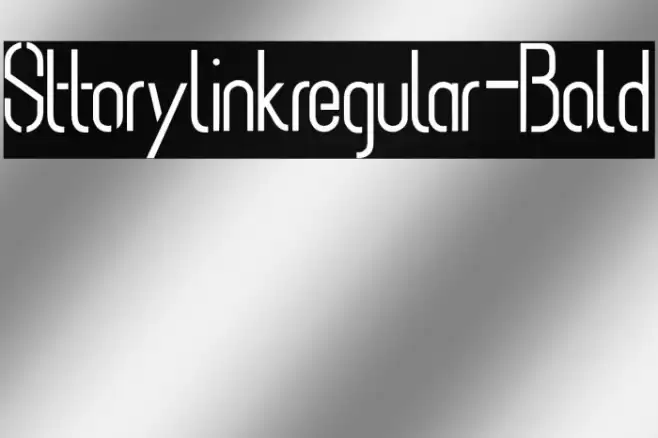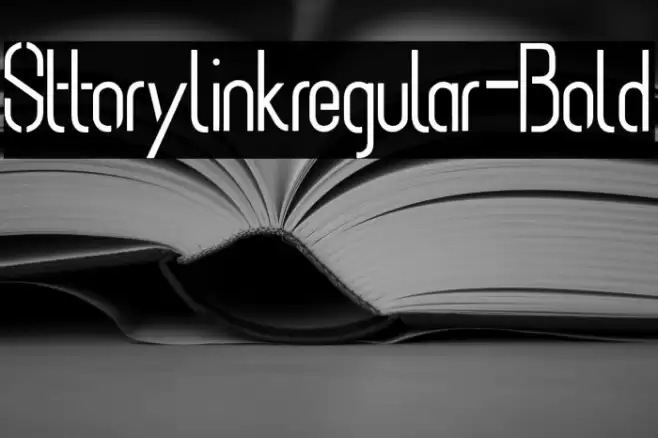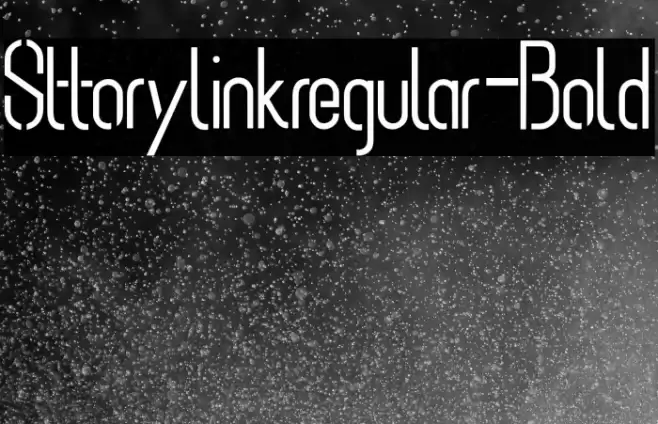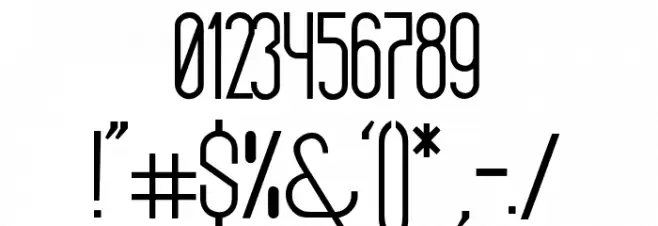
Sttorylinkregular-Bold Font
Sttorylinkregular-Bold Description
This font features a modern and sleek design with elongated, narrow characters that give it a distinctive and stylish appearance. The uppercase letters are tall and slightly condensed, while the lowercase letters maintain a consistent height that complements the overall design. The numerals are uniform in height and align well with the uppercase letters, providing a cohesive look. Special characters are designed with the same narrow and elongated style, ensuring consistency across all glyphs. The font's clean lines and geometric shapes make it suitable for contemporary design projects.
A modern, narrow font with elongated characters and a sleek design from Uncategorized fonts.